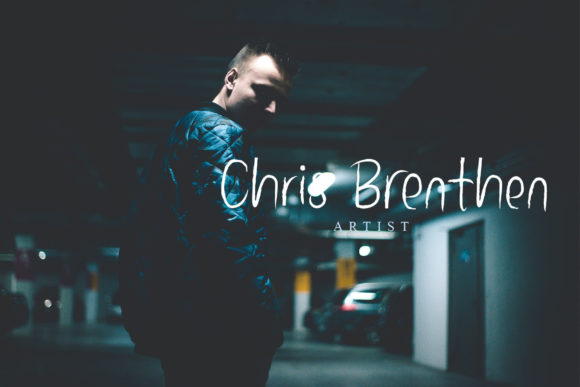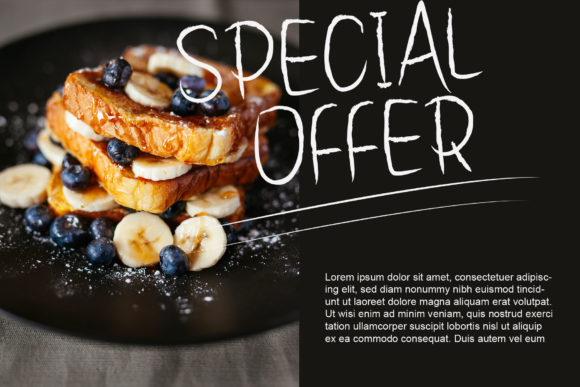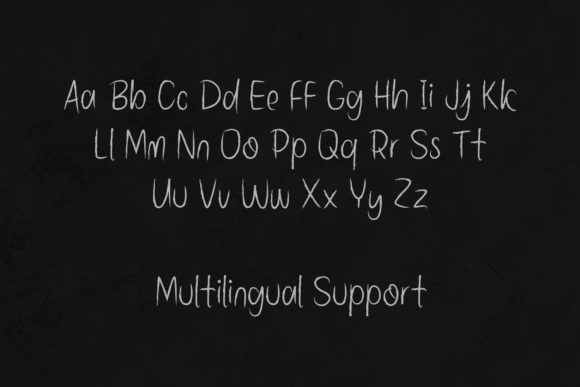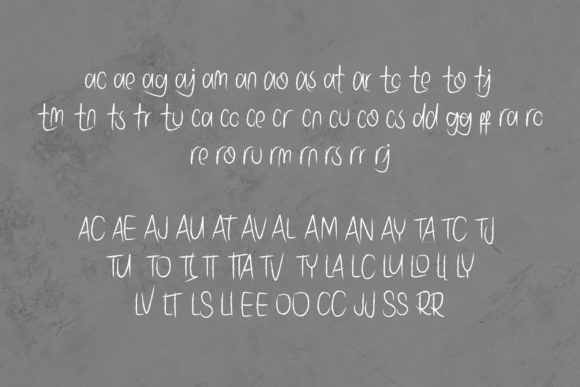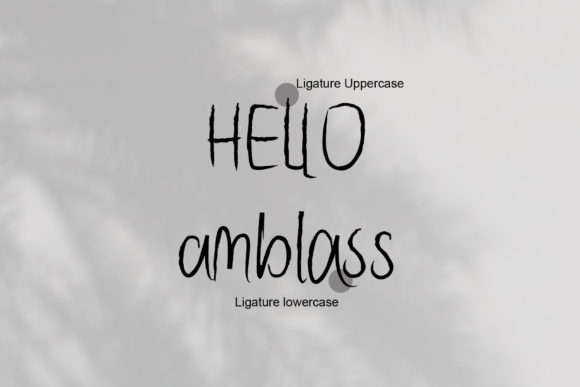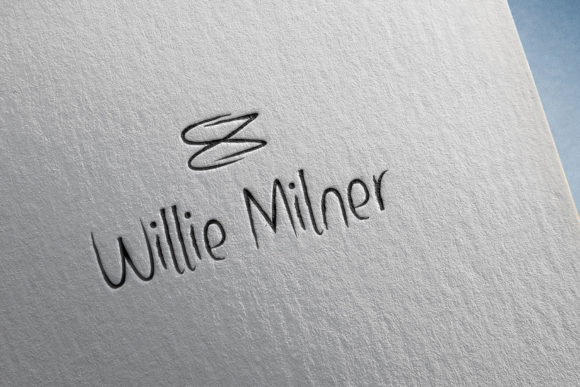
Introducing Amblass Font: The Ultimate Choice for Casual and Informal Designs
Are you tired of using the same old fonts for your designs? Look no further! Amblass Font is here to revolutionize your creative projects with its unique, cool, and brushed handwritten style. This versatile font is perfect for a wide range of casual or informal designs, and we’re excited to dive into its features and endless possibilities.
What is Amblass Font?
Amblass Font is a beautifully crafted, handwritten font that boasts a distinctive brushed look. Its casual and relaxed vibe makes it an excellent choice for designers and crafters looking to add a personal touch to their work. Whether you’re creating social media graphics, posters, flyers, or any other visual material, Amblass Font is sure to make your designs stand out.
Key Features of Amblass Font
- Unique Brushed Style: Amblass Font features a one-of-a-kind brushed look that adds a touch of personality to your designs.
- Casual and Informal: This font is perfect for creating casual and informal designs that require a relaxed and friendly tone.
- Highly Versatile: Amblass Font can be used for a wide range of projects, from social media graphics to print materials.
- Easy to Read: Despite its unique style, Amblass Font remains highly legible, making it suitable for body text and headlines.
Endless Variations and Creative Possibilities
One of the most exciting aspects of Amblass Font is its endless variations and creative possibilities. With this font, you can:
- Experiment with Different Colors: Try out various color schemes to match your brand’s identity or to evoke a specific mood.
- Play with Textures and Patterns: Add textures and patterns to your text to give it a more tactile and organic feel.
- Mix and Match with Other Fonts: Combine Amblass Font with other fonts to create visually appealing typography.
- Use it for Various Design Projects: From social media graphics to posters, flyers, and more, Amblass Font is perfect for a wide range of design projects.
Who Can Benefit from Amblass Font?
Amblass Font is an excellent choice for:
- Graphic Designers: Add a personal touch to your designs and create visually appealing typography.
- Crafters and DIY Enthusiasts: Use Amblass Font to create unique and eye-catching titles for your handmade products or DIY projects.
- Social Media Influencers: Elevate your social media graphics with a cool and casual font that resonates with your audience.
- Small Business Owners: Use Amblass Font to create engaging and informal marketing materials that reflect your brand’s personality.
| Font Name | Amblass Font |
| Author | Letterdy-Studio |
In conclusion, Amblass Font is a versatile and stylish font that’s perfect for designers and crafters looking to add a personal touch to their work. Its unique brushed style, casual vibe, and endless creative possibilities make it an excellent choice for a wide range of design projects. So, have fun with this beautiful font and explore its endless variations to take your designs to the next level!
Get Ready to Unlock Your Creative Potential with Amblass Font!